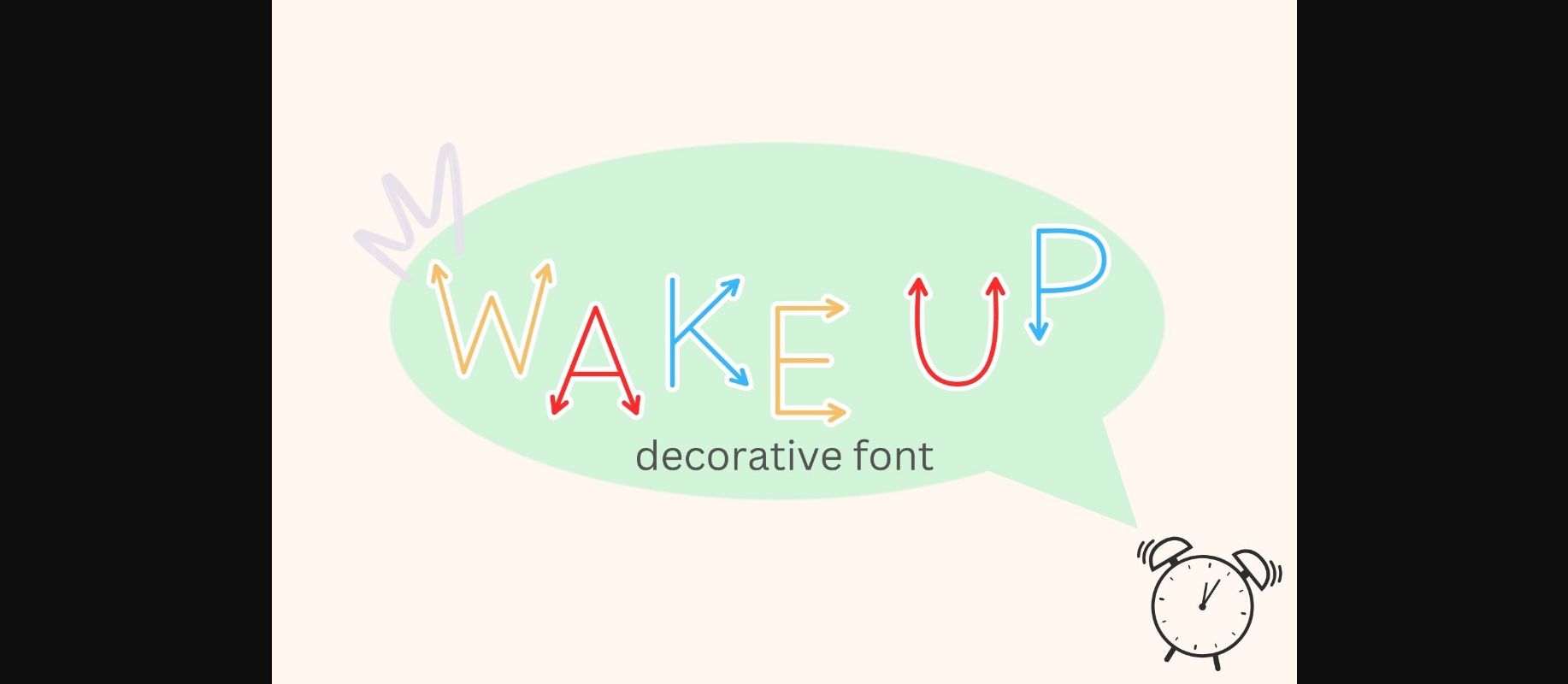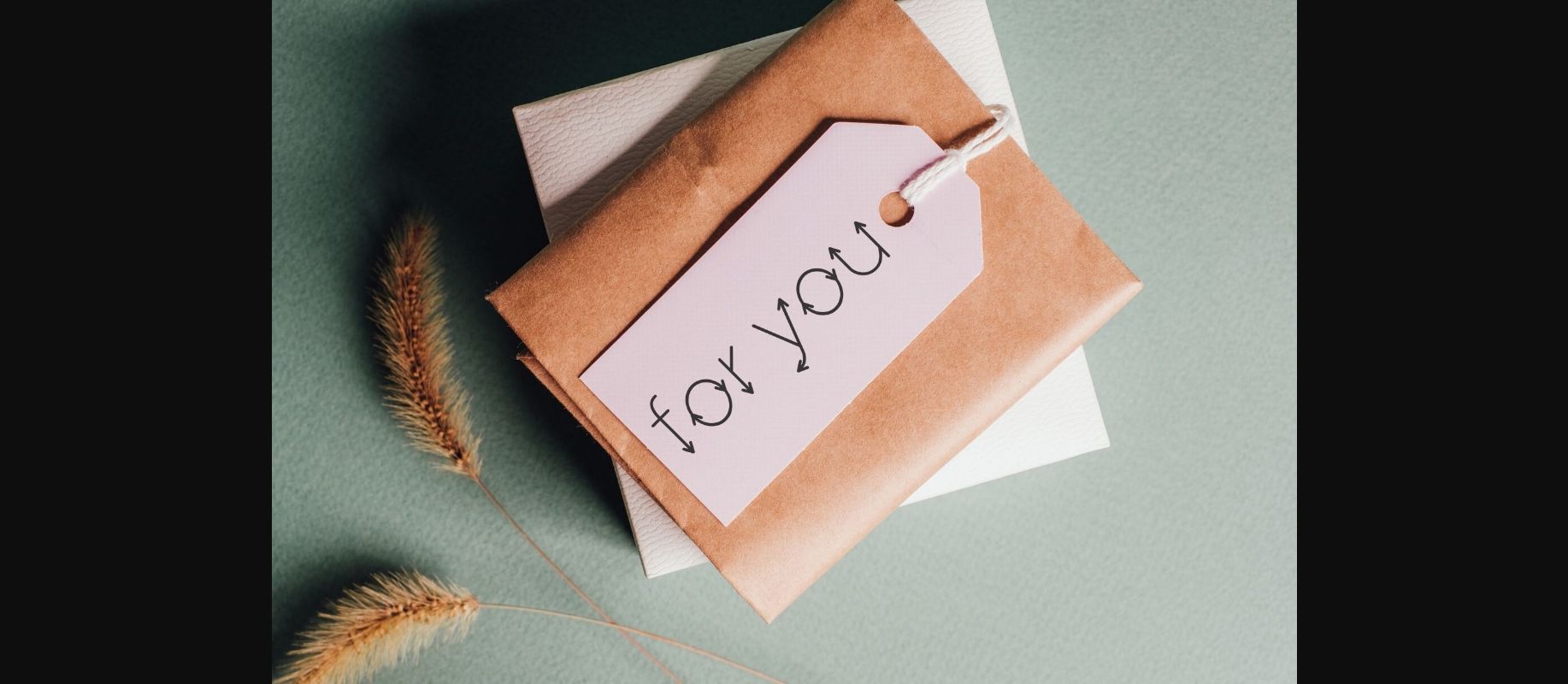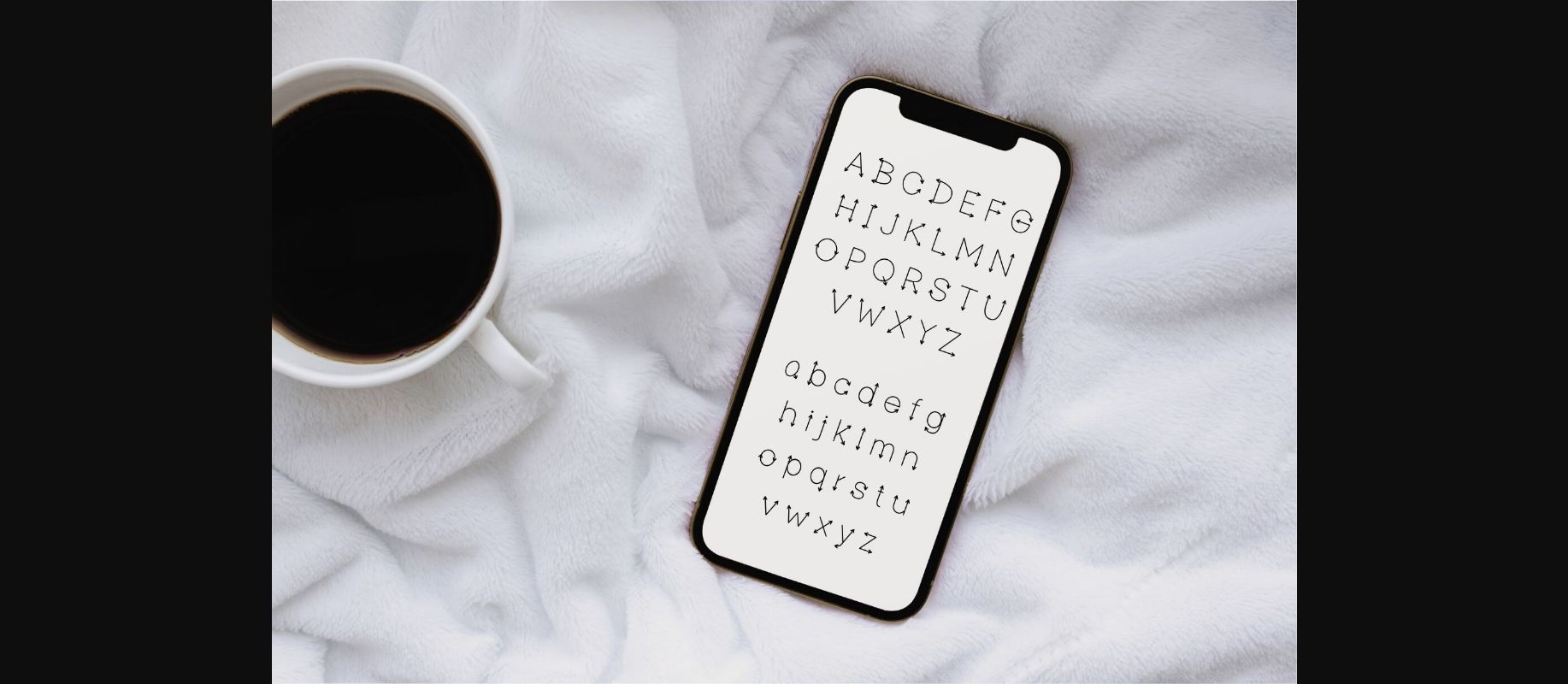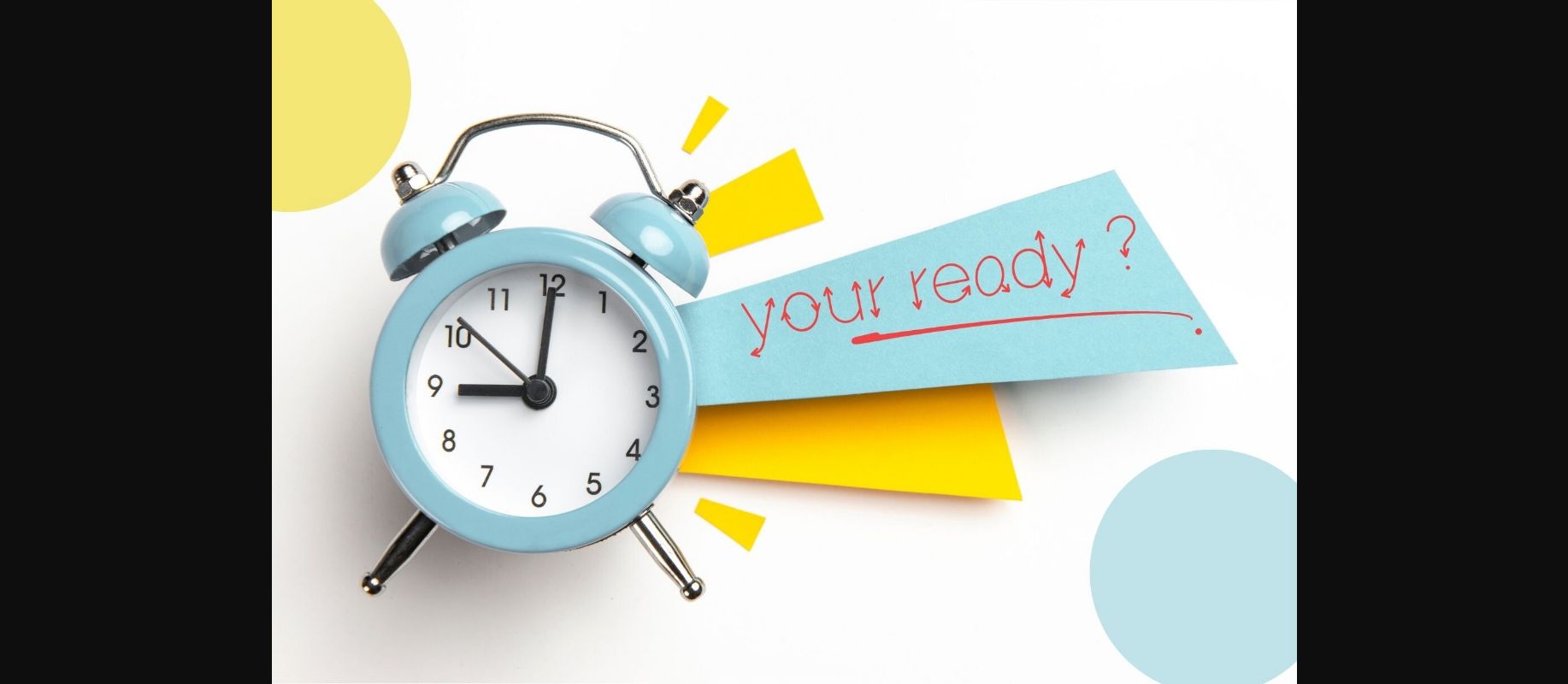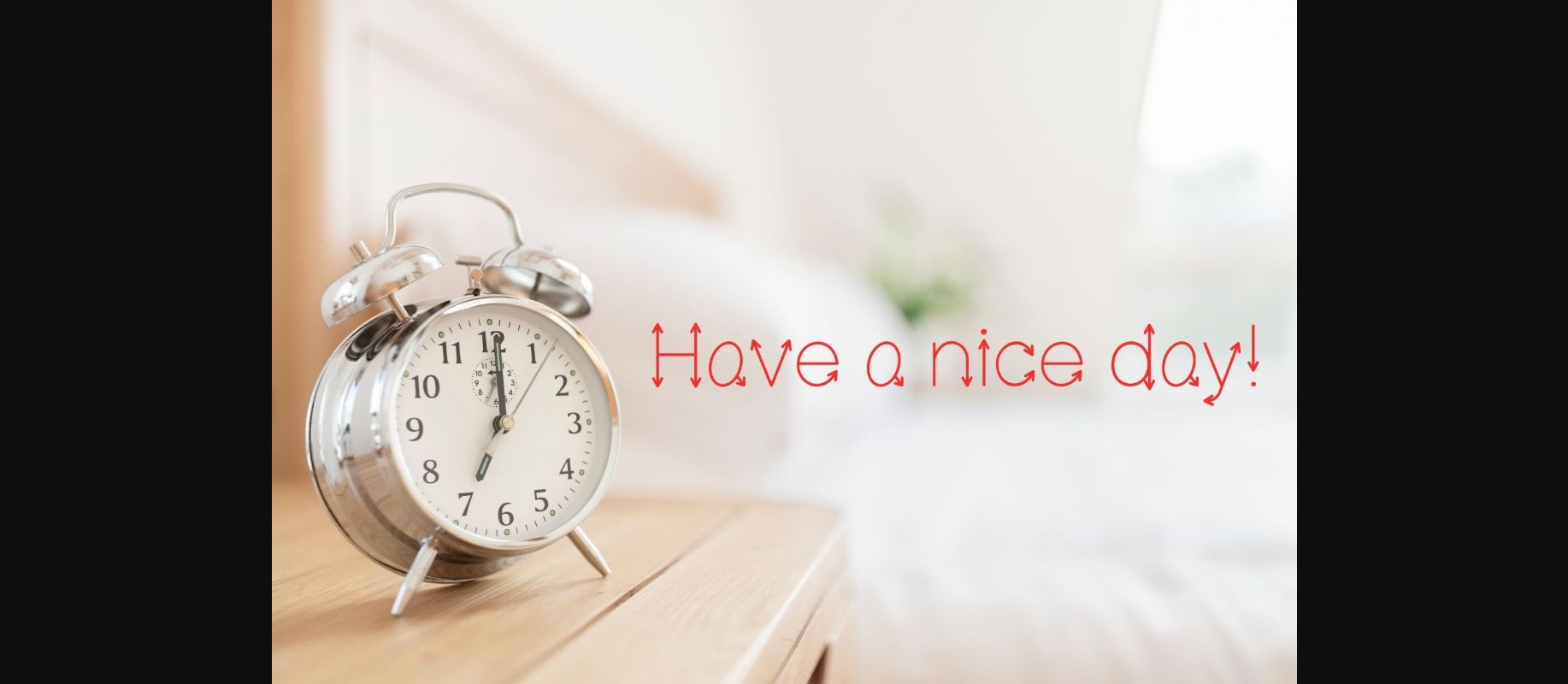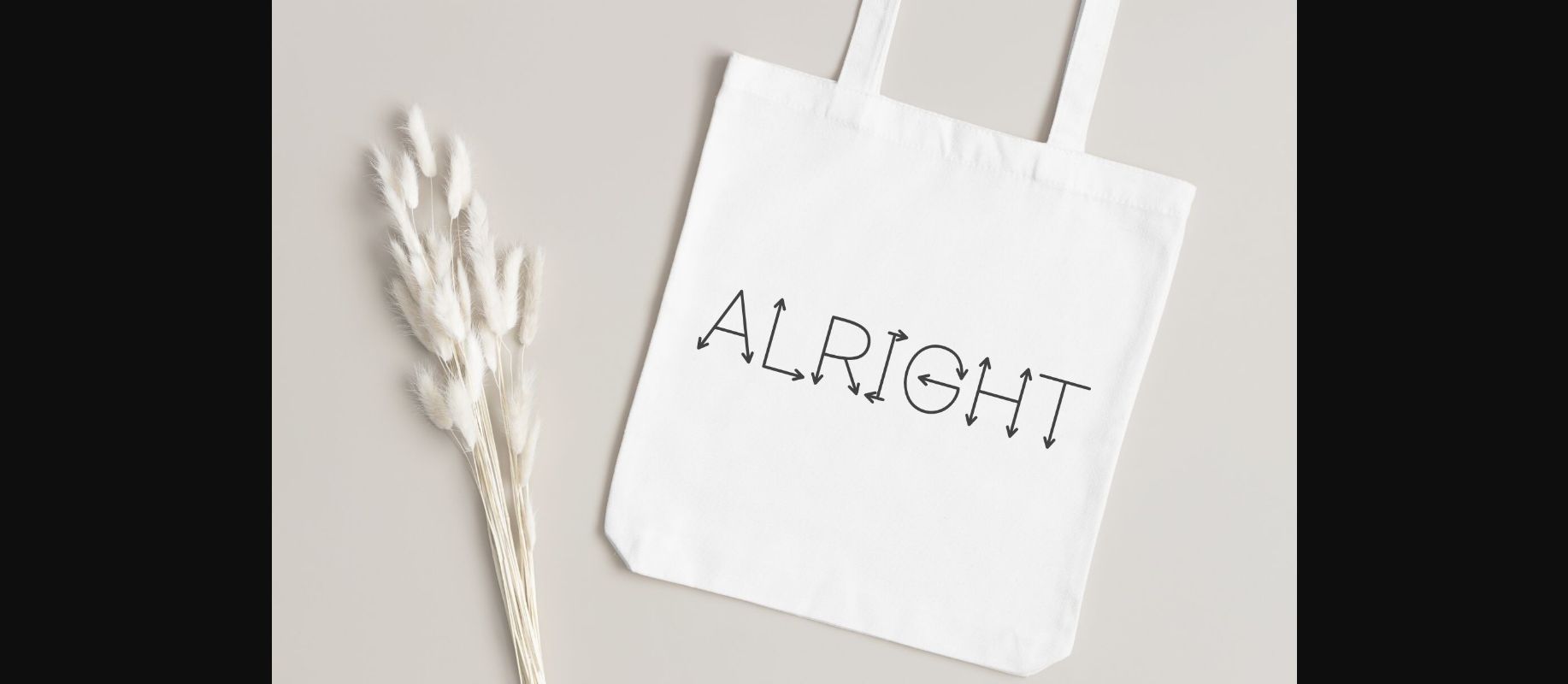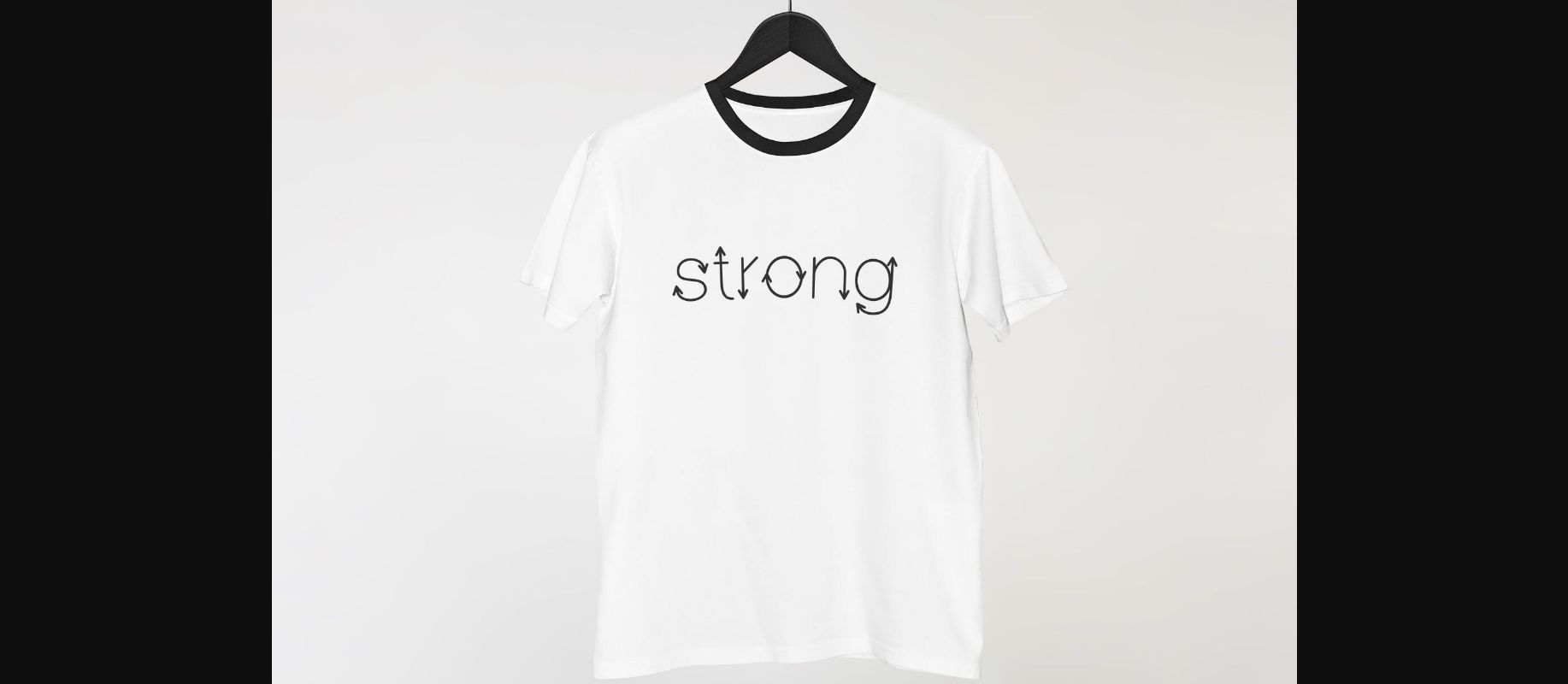
Wake Up Font
About Wake Up Font
Wake up is a decorative font that can be used within your documents for commercial and personal use! Perfectly suitable for numerous uses such as digital note-taking, digital planners, quotations, banners, logos, product packaging, titles, headers, menu lists and much more.